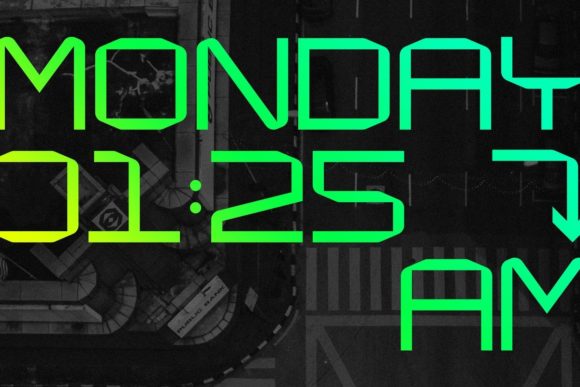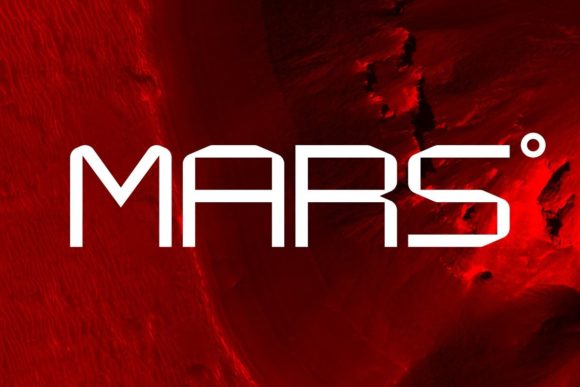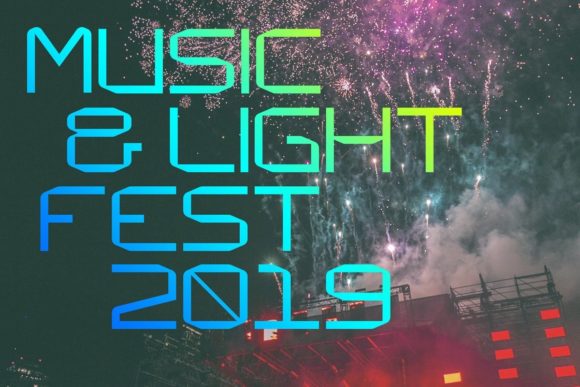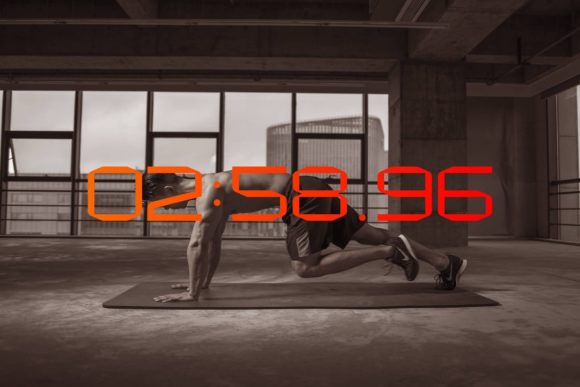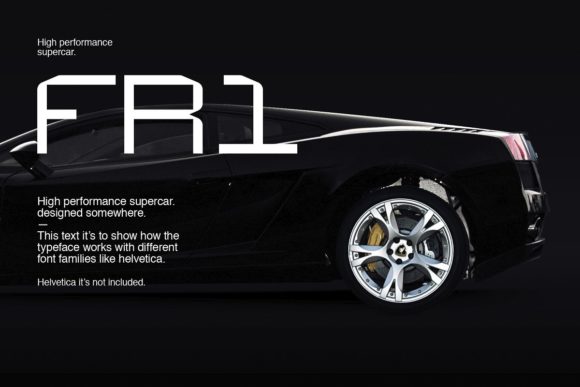
The Ultimate Game-Changer for Your Next Creative Project
Have you ever stared at a blank page, waiting for inspiration to strike? You’re not alone. As creatives, we’ve all been there – searching for that spark that sets our projects ablaze. And sometimes, all it takes is the right font to bring our vision to life. Enter the 23F Font, a sleek and futuristic display font that’s about to become your new go-to.
With its geometric style and cool demeanor, the 23F Font is the perfect addition to any designer’s library. Whether you’re working on a futuristic sci-fi project or a cutting-edge tech startup, this font has the potential to elevate your creations to the next level. Its versatility and modern aesthetic make it an invaluable asset for designers looking to push the boundaries of their work.
Key Features of 23F Font
- Font Family: 23F Font is a sans-serif typeface designed for digital use, available in various weights and styles.
- Size and Resolution: 23F Font is optimized for use at sizes ranging from 10 to 24 points, with a recommended resolution of 300 DPI for high-quality output.
- Unique Characteristics: 23F Font features a clean, modern design with a focus on legibility and readability, making it ideal for digital applications, including websites, mobile apps, and e-books.
- Language Support: 23F Font supports a wide range of languages, including Latin, Cyrillic, Greek, and many Asian languages, ensuring its versatility in global markets.
Designer Review: 23F Font
Overall, I found 23F Font to be a decent addition to any digital project. Here’s a breakdown of its strengths and weaknesses.
- The font has a clean and modern aesthetic, making it suitable for various applications, from digital interfaces to publications.
- Its high x-height ensures readability, even at smaller font sizes.
- The font family includes a range of weights and styles, providing flexibility for designers to experiment with different visual effects.
- The font may appear too generic for certain design projects, lacking a distinctive personality or unique character.
- Some users may find the font’s lines and shapes too angular or sharp, which could be overwhelming in certain contexts.
- The font family could benefit from additional language support, as some languages may not be fully covered.
Overall, I’d give 23F Font 3.5 out of 5 stars. While it’s a solid choice for many design projects, it may not stand out in more competitive or niche markets. With some additional development and refinement, I believe this font has the potential to become a top contender in the digital design world.
The 23F Font is a sans-serif font that works well for digital and print materials.
– Digital signage and advertising
– Brochures and flyers
– Business cards and letterheads
For best results, use the 23F Font in combination with a clear and concise design.
23F Font supports a wide range of languages, including Latin, Cyrillic, Greek, and many other languages. It also includes a comprehensive set of characters, including punctuation, symbols, and special characters, making it a versatile font for international applications.